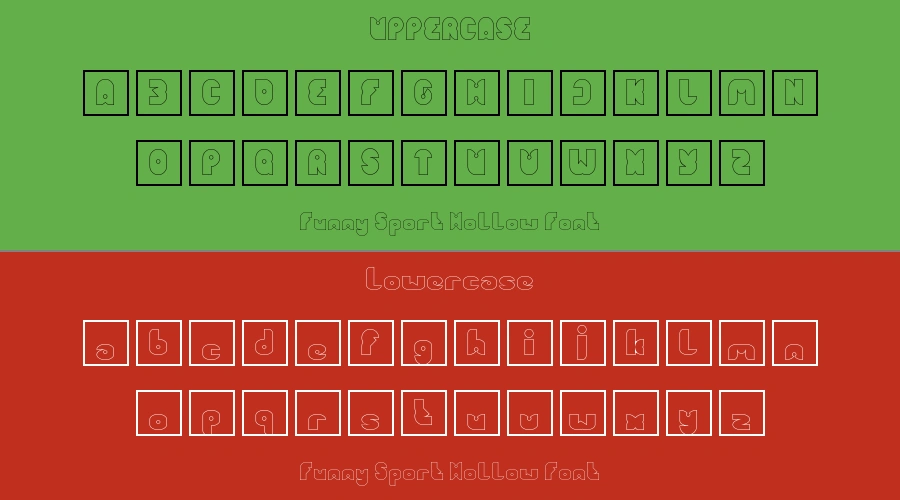
About Funny Sport Hollow Font
Designed with precision, Funny Sport Hollow Font merges perfect spacing with creative expression in every character. This versatility makes it particularly effective for medical writing, where scalability and uniqueness directly impact communication quality. Each letterform demonstrates meticulous craftsmanship.
Technical excellence shines through elements like brush influence and arbitrary fractions, enhancing typographic versatility. In logos settings, Funny Sport Hollow Font proves its worth through superior detail retention. The thoughtful execution of ascender height and institutional trust ensures professional results.